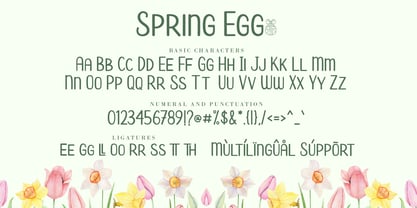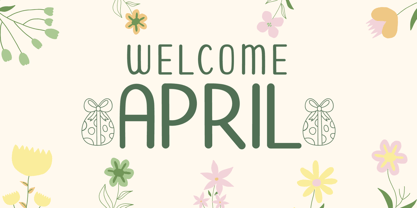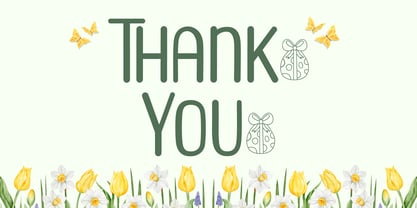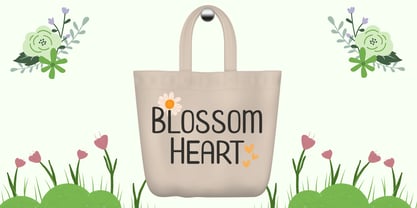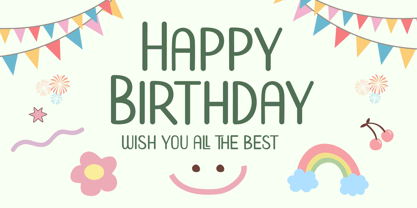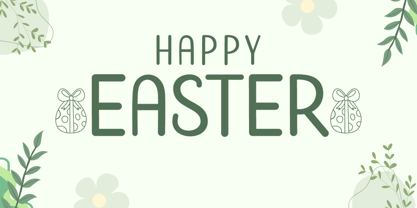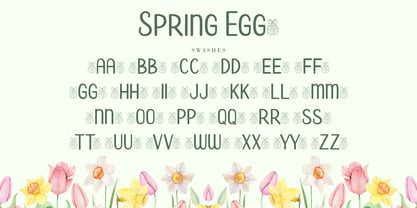
Spring Egg
by AEN Creative Studio
The Spring Egg Font Family was designed by Agung Eko Nugroho and published by AEN Creative Studio. Spring Egg contains 2 styles and family package options. More about this family
Meet Spring Egg, the ultimate font for bringing joy to your creative projects! Inspired by Easter eggs and spring’s joyful energy, this typeface is perfect for kid-themed birthday invitations, cheerful greeting cards, and festive designs. Whether you’re crafting cute decorations, designing merchandise, or making social media graphics, Spring Egg adds a unique, heartwarming charm. Make every project stand out with this versatile, seasonally inspired handwritten font!
Designers: Agung Eko Nugroho
Foundry: AEN Creative Studio